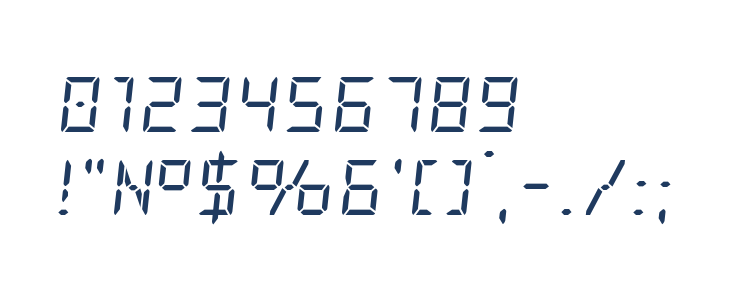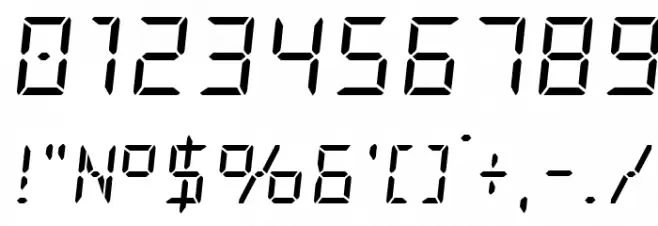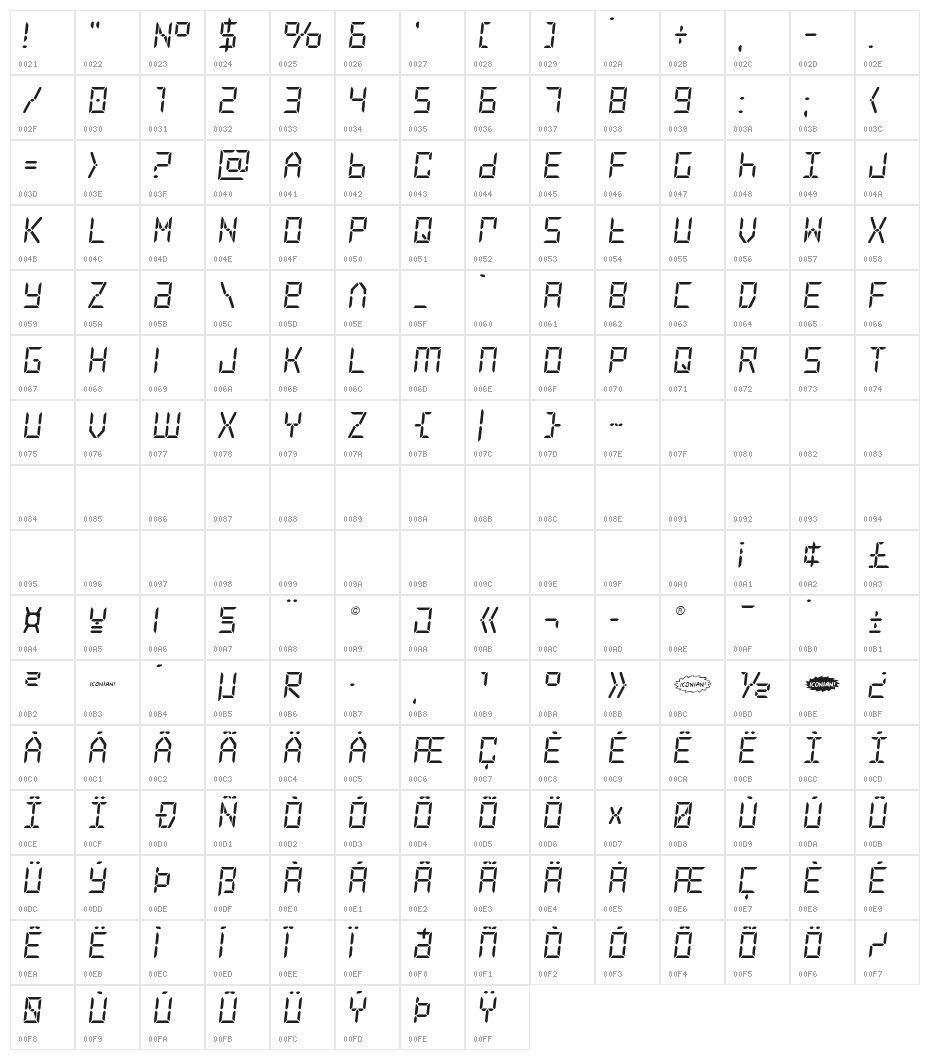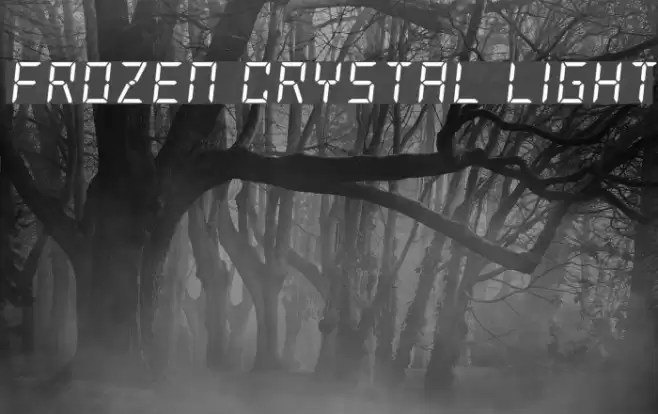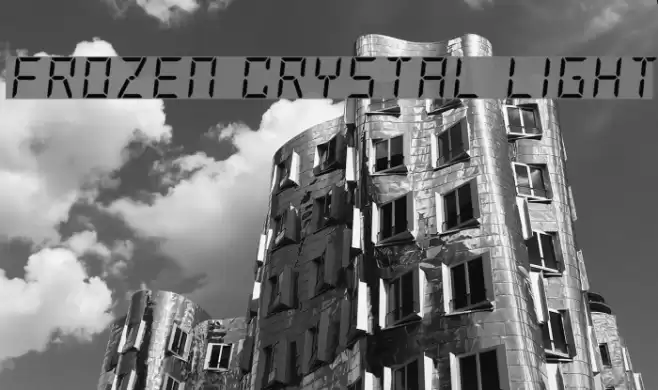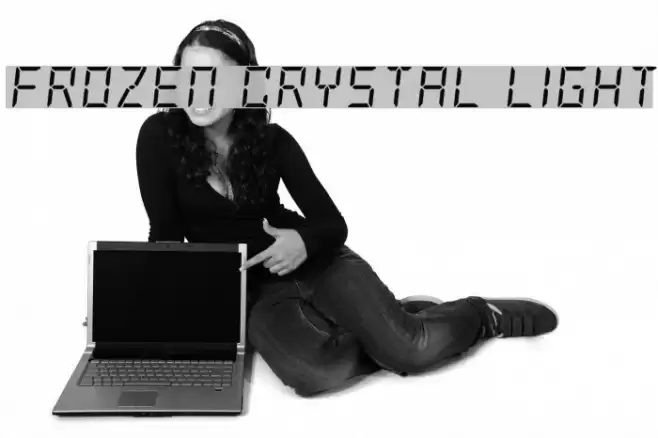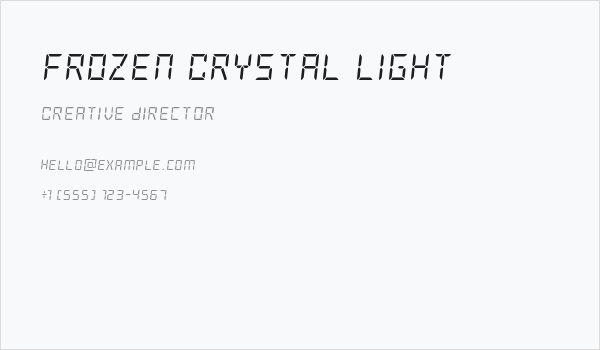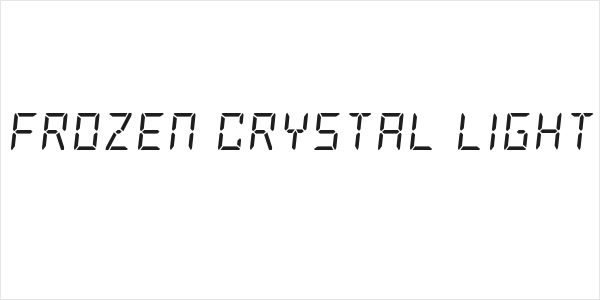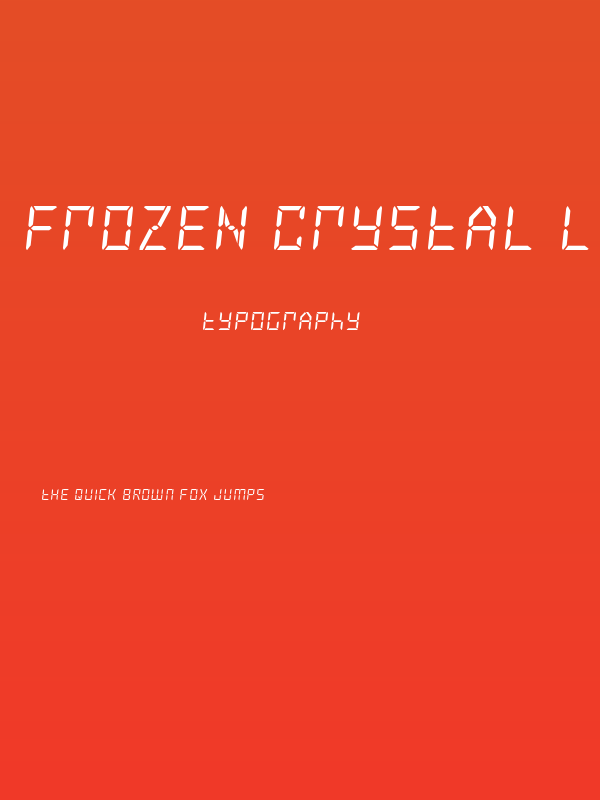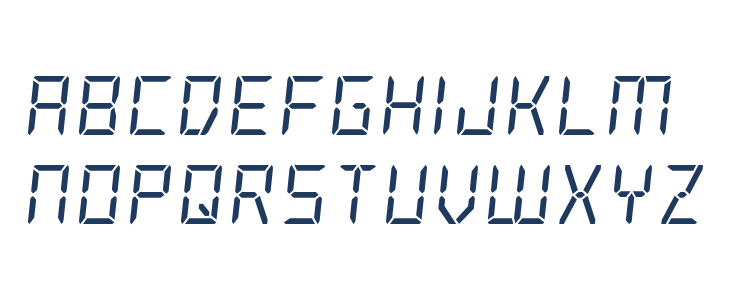
Frozen Crystal Light Font
Frozen Crystal Light Description
This font features a geometric, segmented design reminiscent of digital displays or LED screens. Each character is composed of angular, straight lines that form a structured and futuristic appearance. The uppercase and lowercase letters maintain a consistent style, with a uniform height and width that enhances readability. Numbers and special characters follow the same segmented pattern, ensuring a cohesive look across all glyphs. The font's design is both modern and minimalistic, making it suitable for projects that require a tech-savvy or contemporary aesthetic.
| Proposed Projects | Ideal for digital interfaces, tech branding, futuristic posters, and electronic-themed designs. |